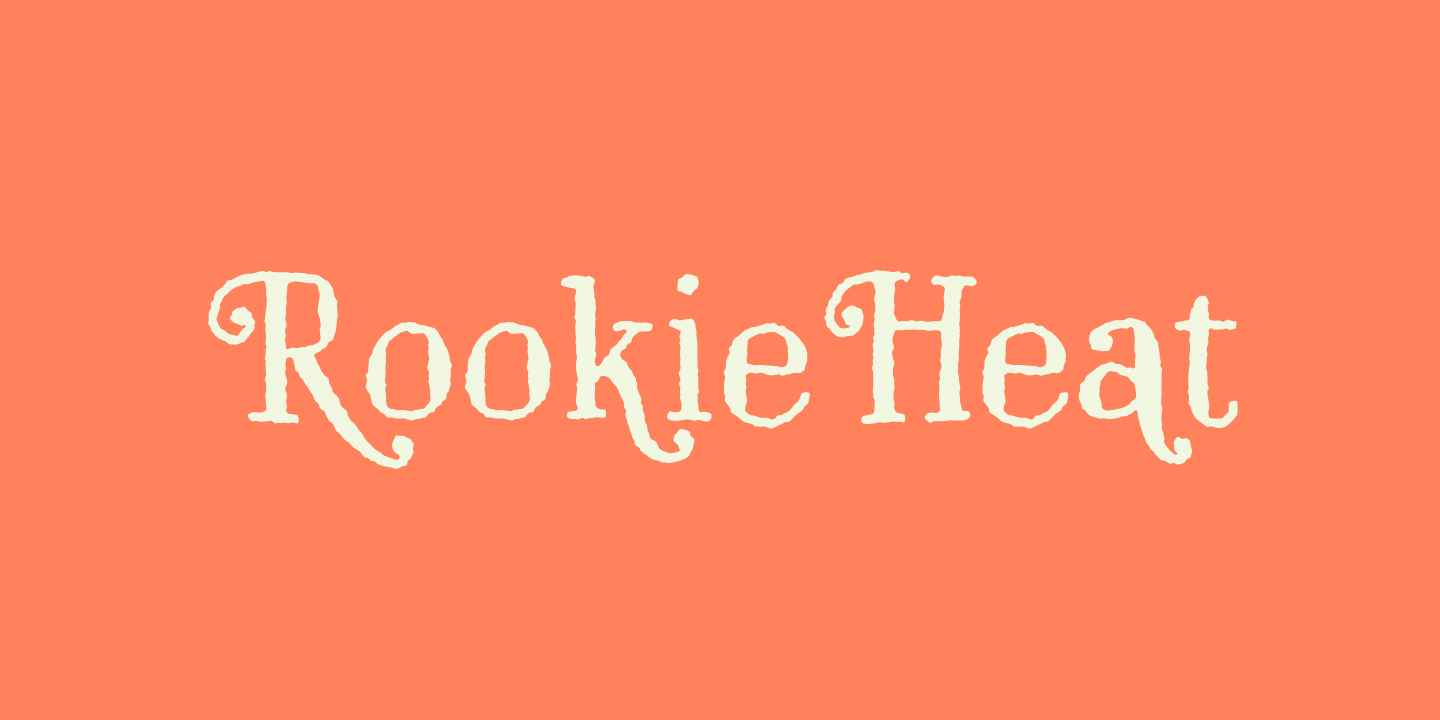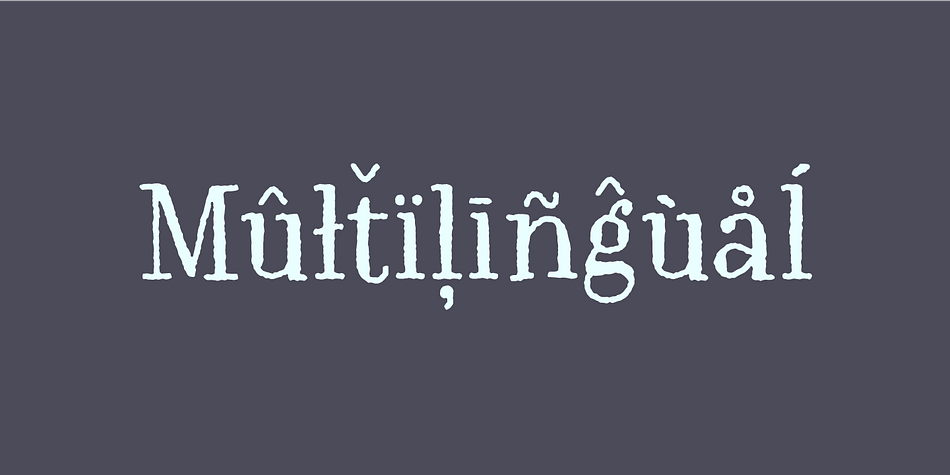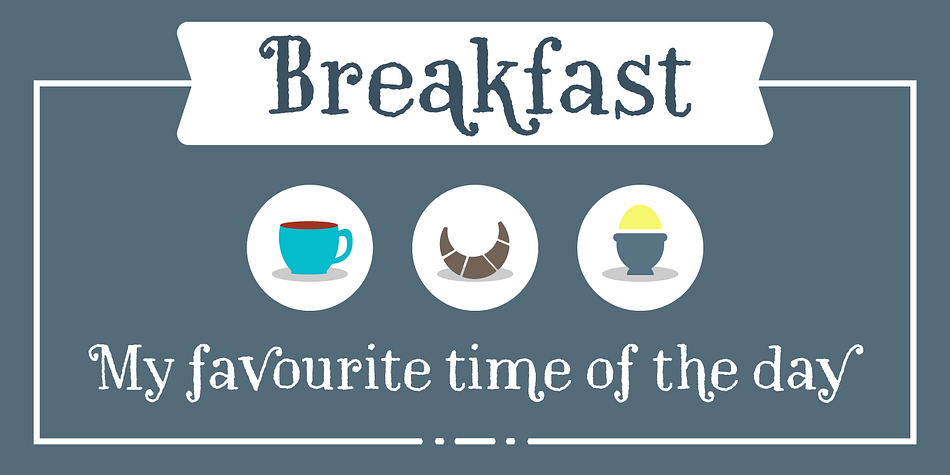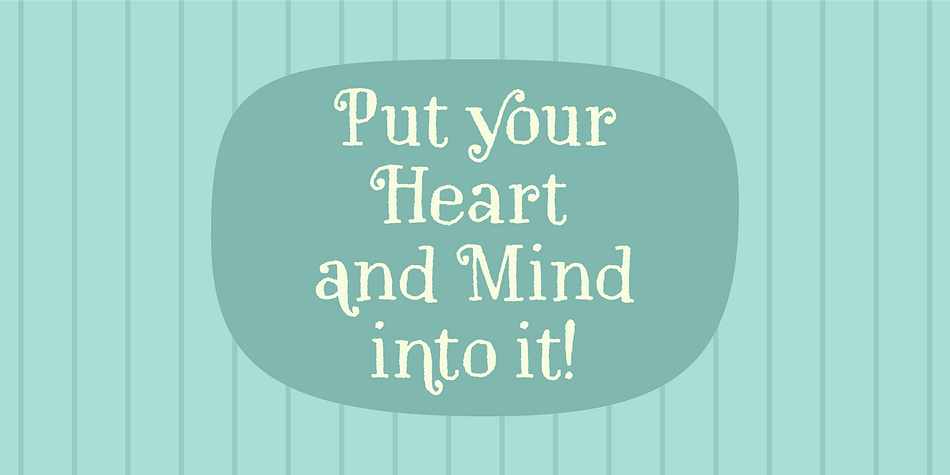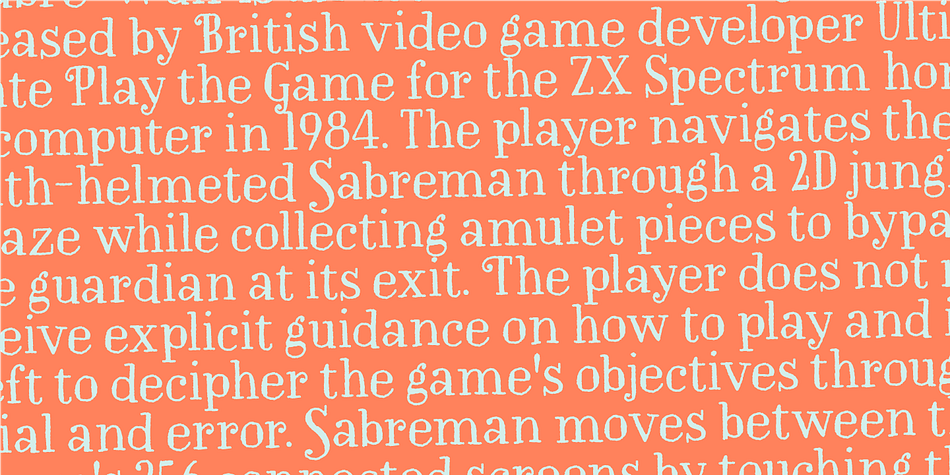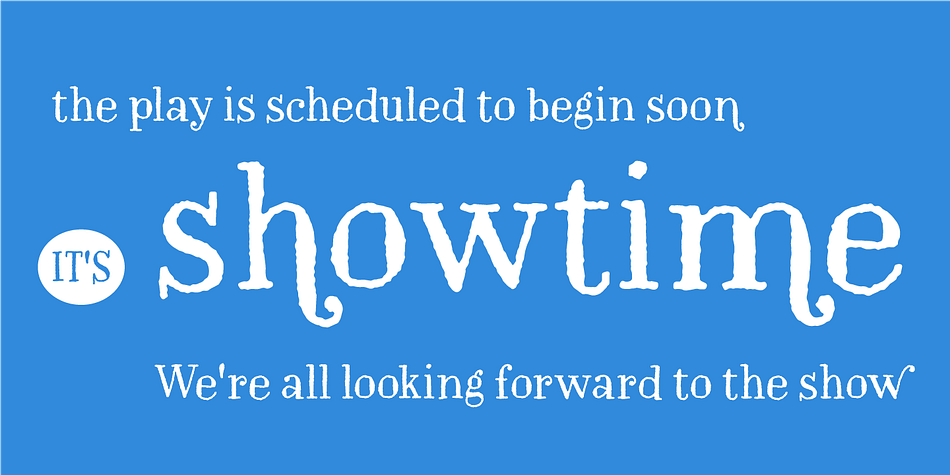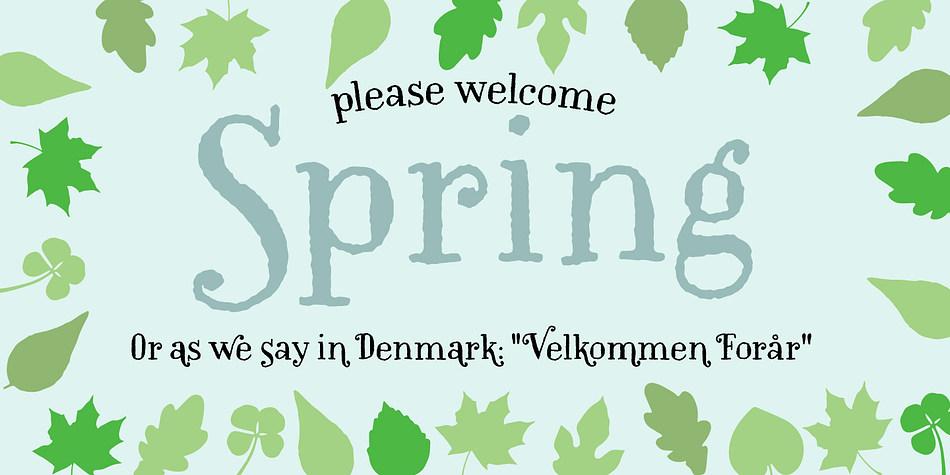
Designed by Jakob Fischer, Rookie Heat is a hand drawn font published by Bogstav.
Based upon classic typefaces such as Bodoni, you might find Rookie Heat familiar. However, the rough outline and handmade look and feel makes it perfect for your craft products. All in all, Rookie Heat is reflecting the beauty of decorative objects.
Play around with the swashes for upper- and lowercase to make your designs stand more out.